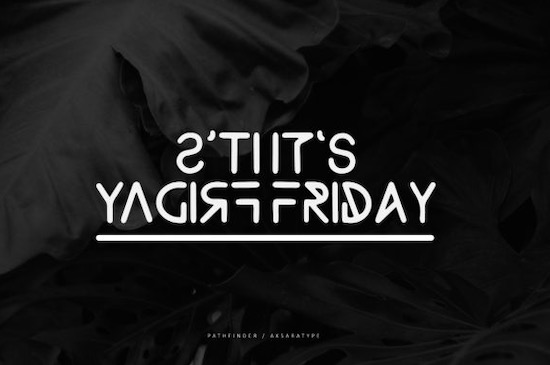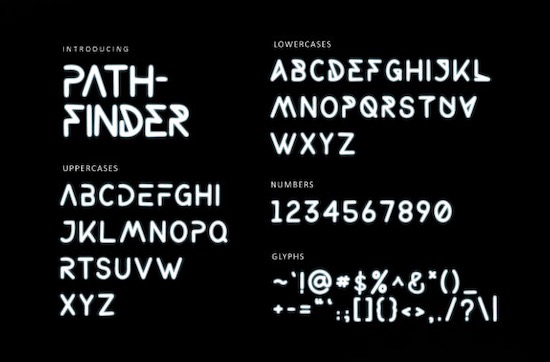
Pathfinder Font
Pathfinder font is an open elegant sans serif typeface. This font was released by Pandastock from Creative Fabrica and it has a little bit of irregularity to add personality. It has all Latin characters along with special characters.
Pathfinder is a professional and cute sans serif typeface, which features an exclusive and unique sans serif look and feels. This font is very perfect for gorgeous branding, web layouts, titles, logos. Its design is based on a geometric line and circle shape with space between each letter which can be used as a minimal style header display or can be read as text content.
This font has a distinctly smart feel, strongly and it brings the lovely message of your creative design projects. Pathfinder font is perfect for many unique design projects.